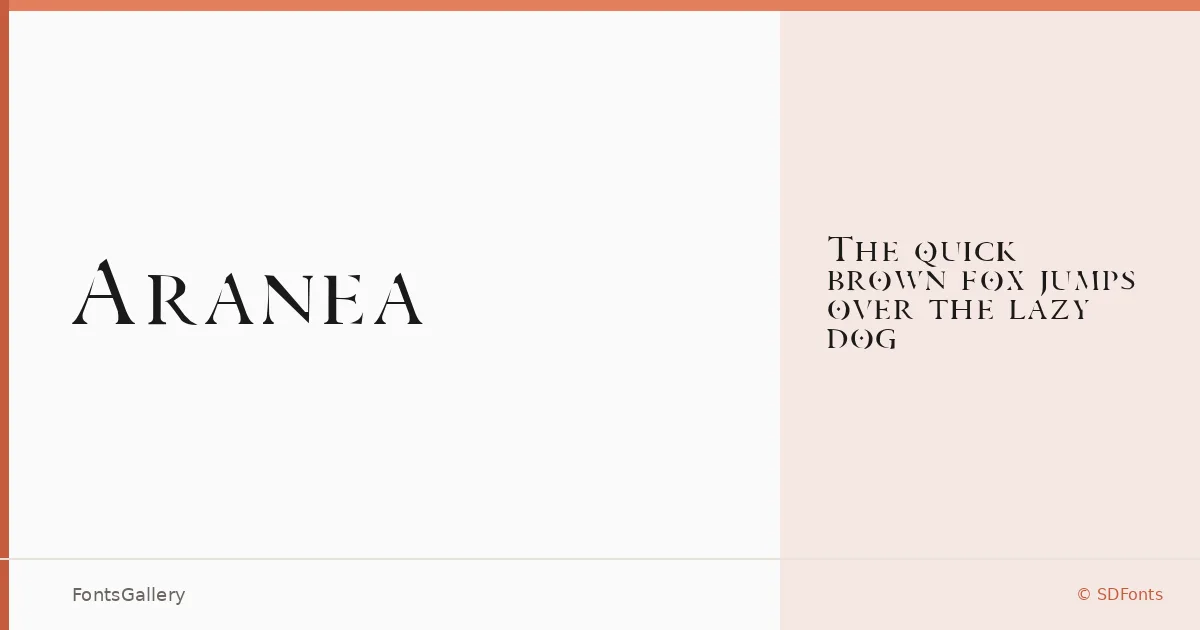
About Aranea Font
There is a quiet authority to this serif — the kind that comes from letterforms that know exactly how much they need to do and nothing more. Released by SDFonts, it arrives as a single Regular weight, a deliberate restraint that pushes the design itself to carry the room.
The serif construction sits at the intersection of classic structure and modern economy — clean enough to read as contemporary, grounded enough to carry a sense of luxury and elegance without ornamental excess. As a TTF file, the single Regular cut rewards settings where one well-drawn face does the heavy lifting: a headline set large, a logotype refined to its essentials. The mood is measured and confident rather than decorative.
This is a face built for high-intention contexts — book covers, magazine headers, branding systems, and logo treatments where a serif with genuine presence is needed. It also holds up in website header use, where the classic elegance reads well at display sizes. For type pairing, it has been matched with Helvetica and Aileron on the sans side, and with Ballmain, Batoshi, and Alexandria when the project calls for complementary display or script companions.